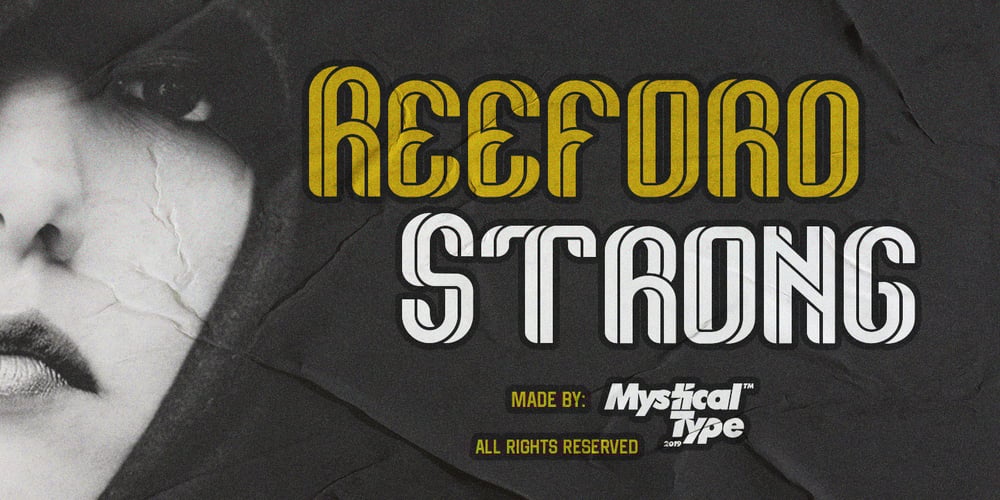
Reeford Font Family was designed by Candi Erwanto and published by MysticalType. Reeford contains 2 styles and family package options. Reeford is a unique typeface with a sporty, modern and adventurous edge. Created to give additional punch titles, Reeford packs a complete set of capital letters, numbers, and punctuation. Whether it’s a show, sporting event, logo design or a simple missing cat poster, Reeford is made to make an impact. Each letter is a three-line thick puzzle completed which took months to collect. Hope you enjoy the results! Thank you very much for watching, any questions I will be happy to answer. Thank you! Candi Erwanto